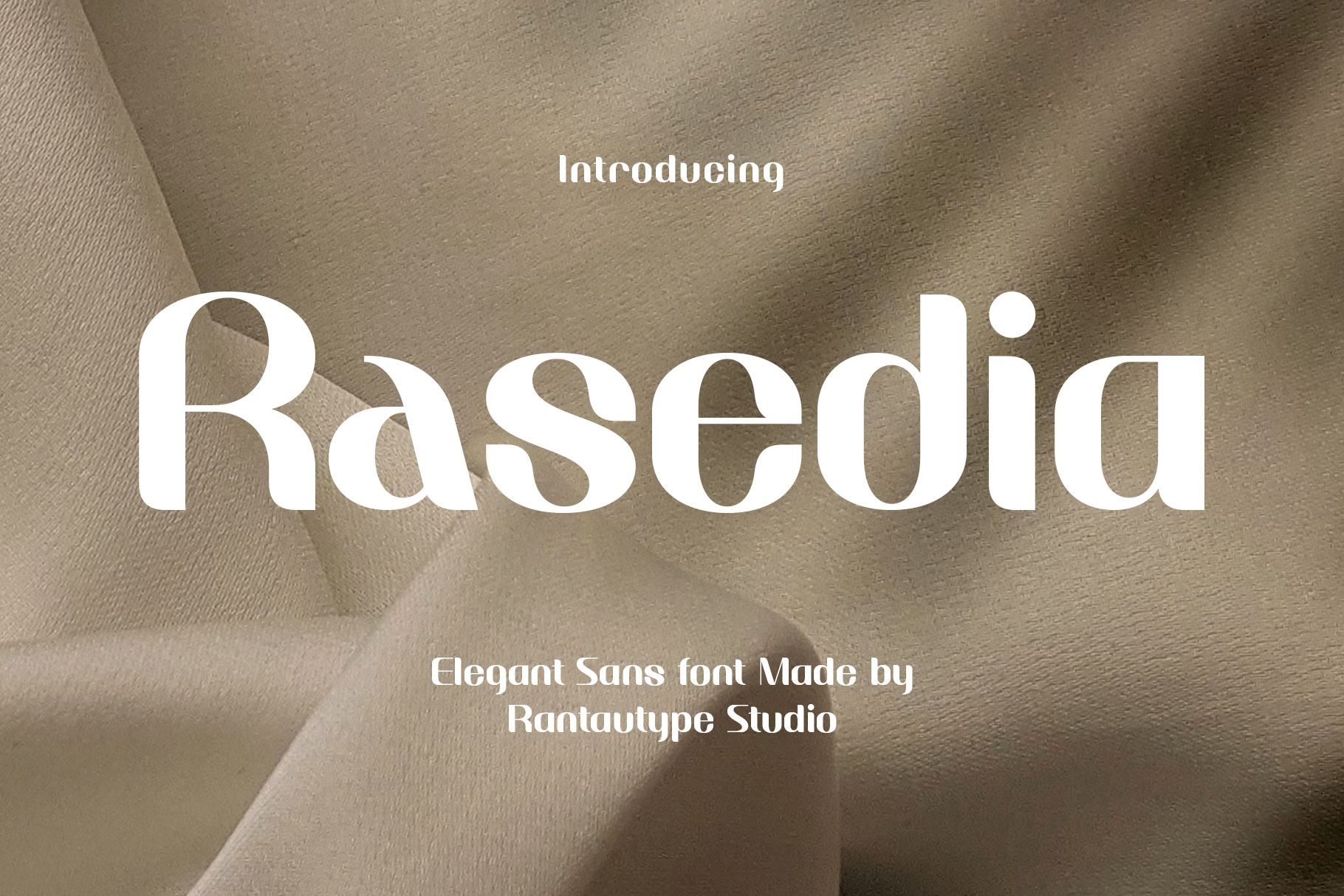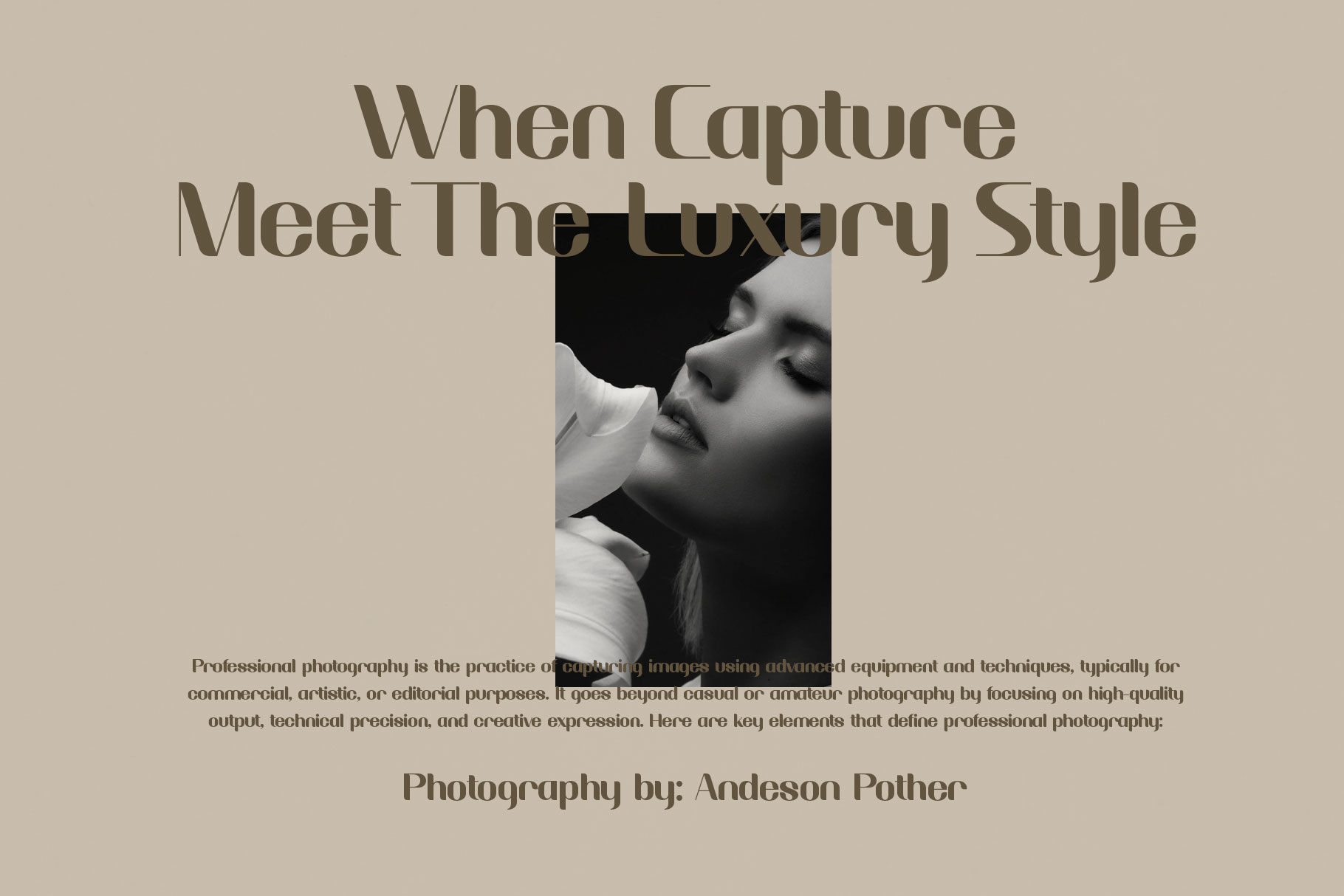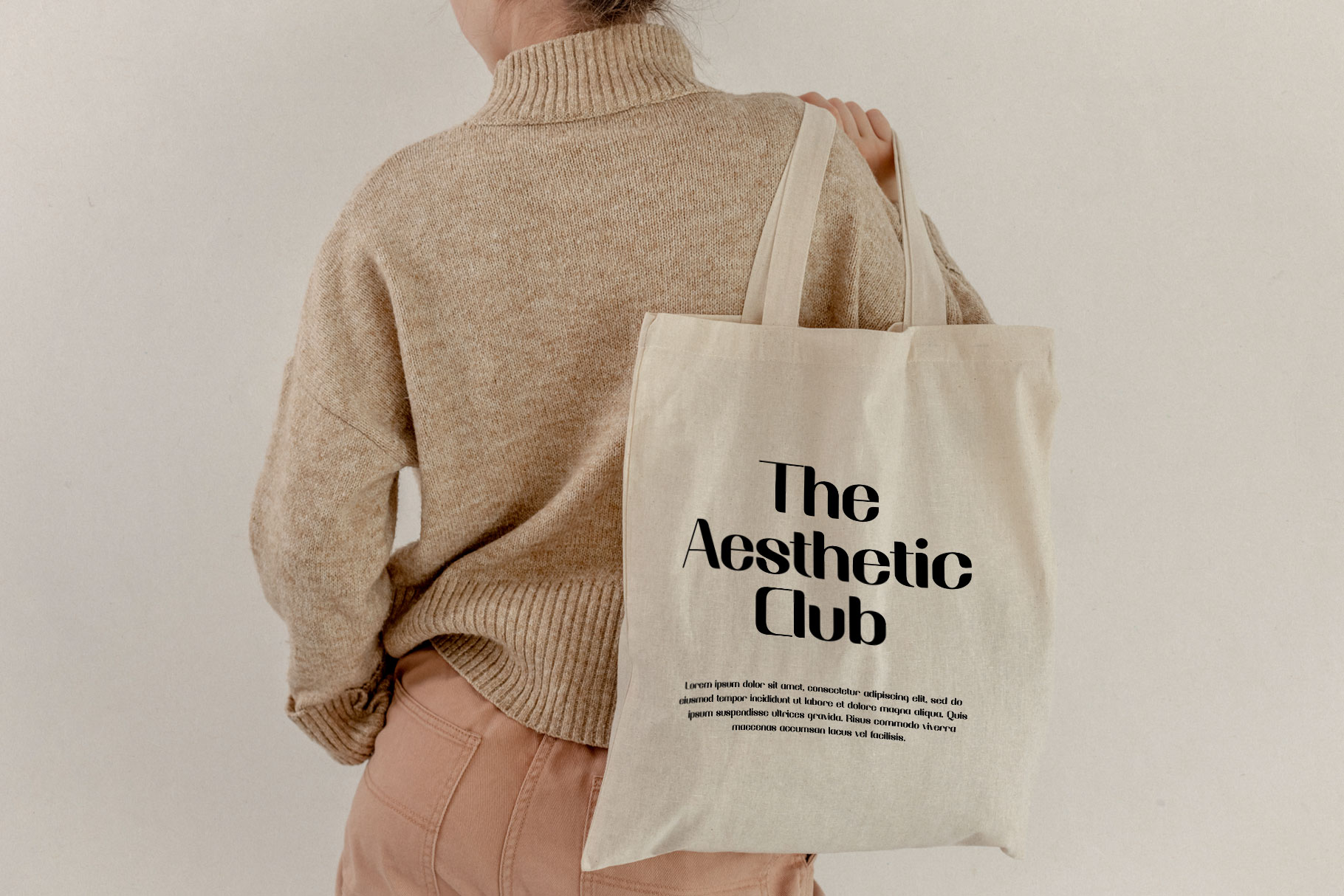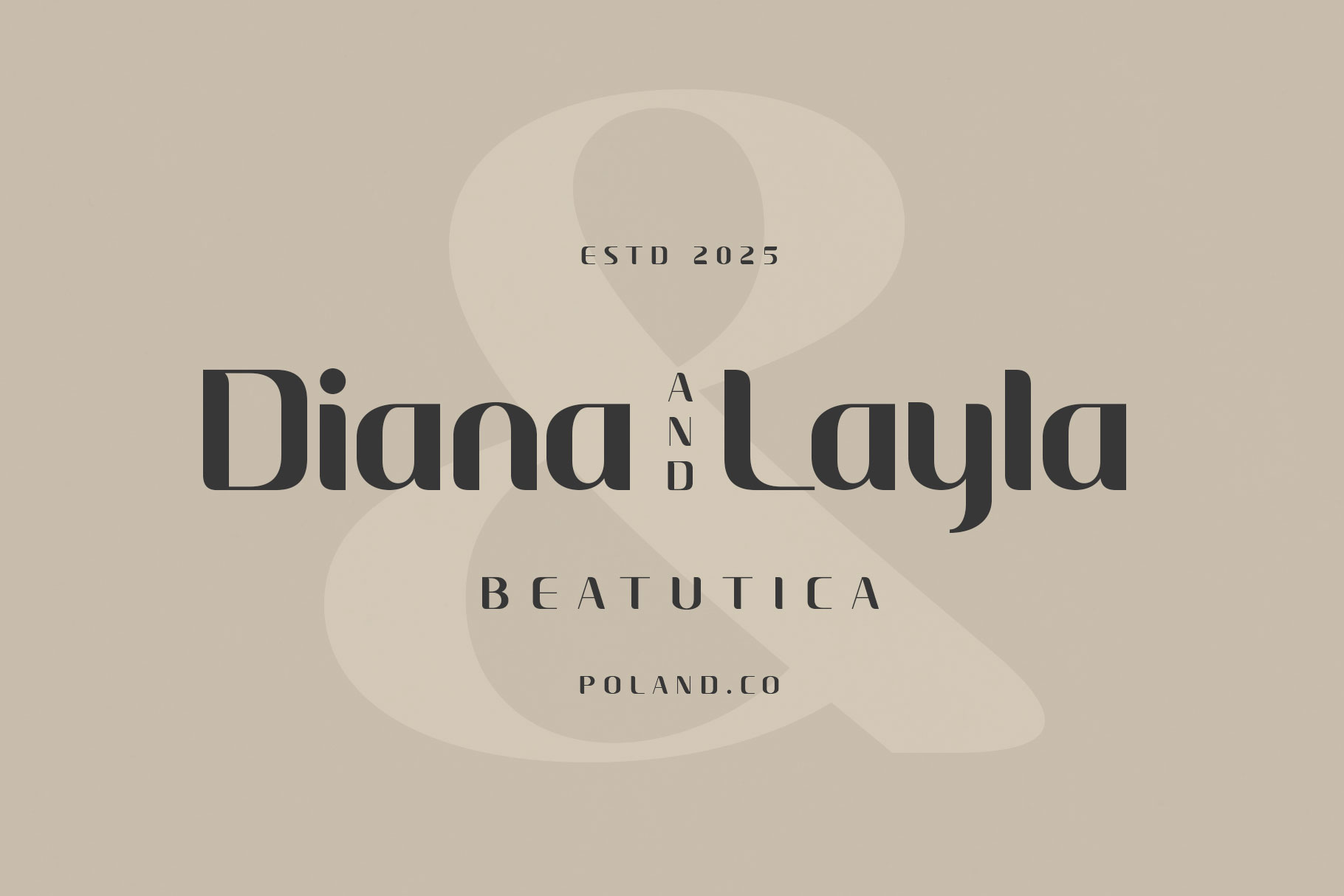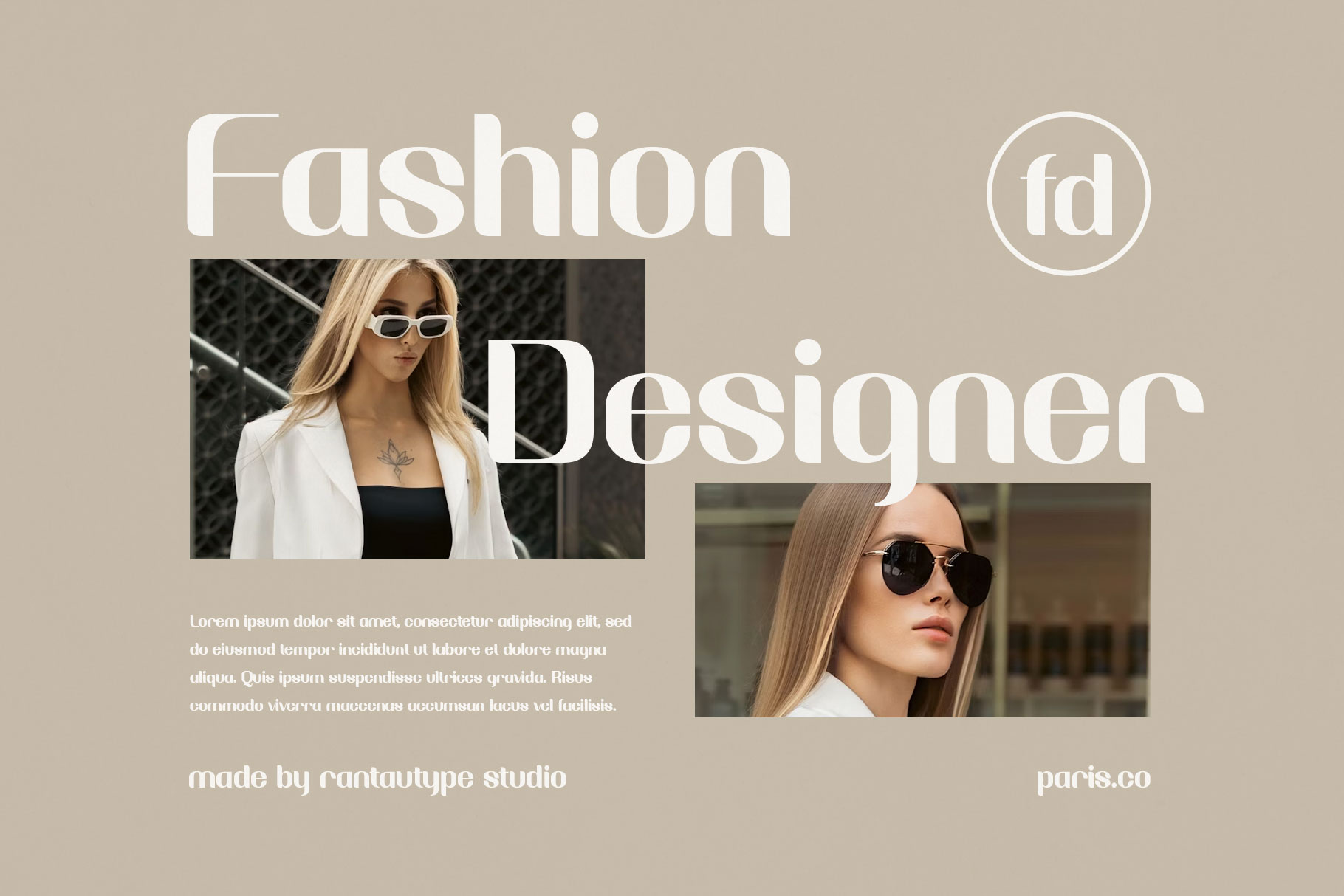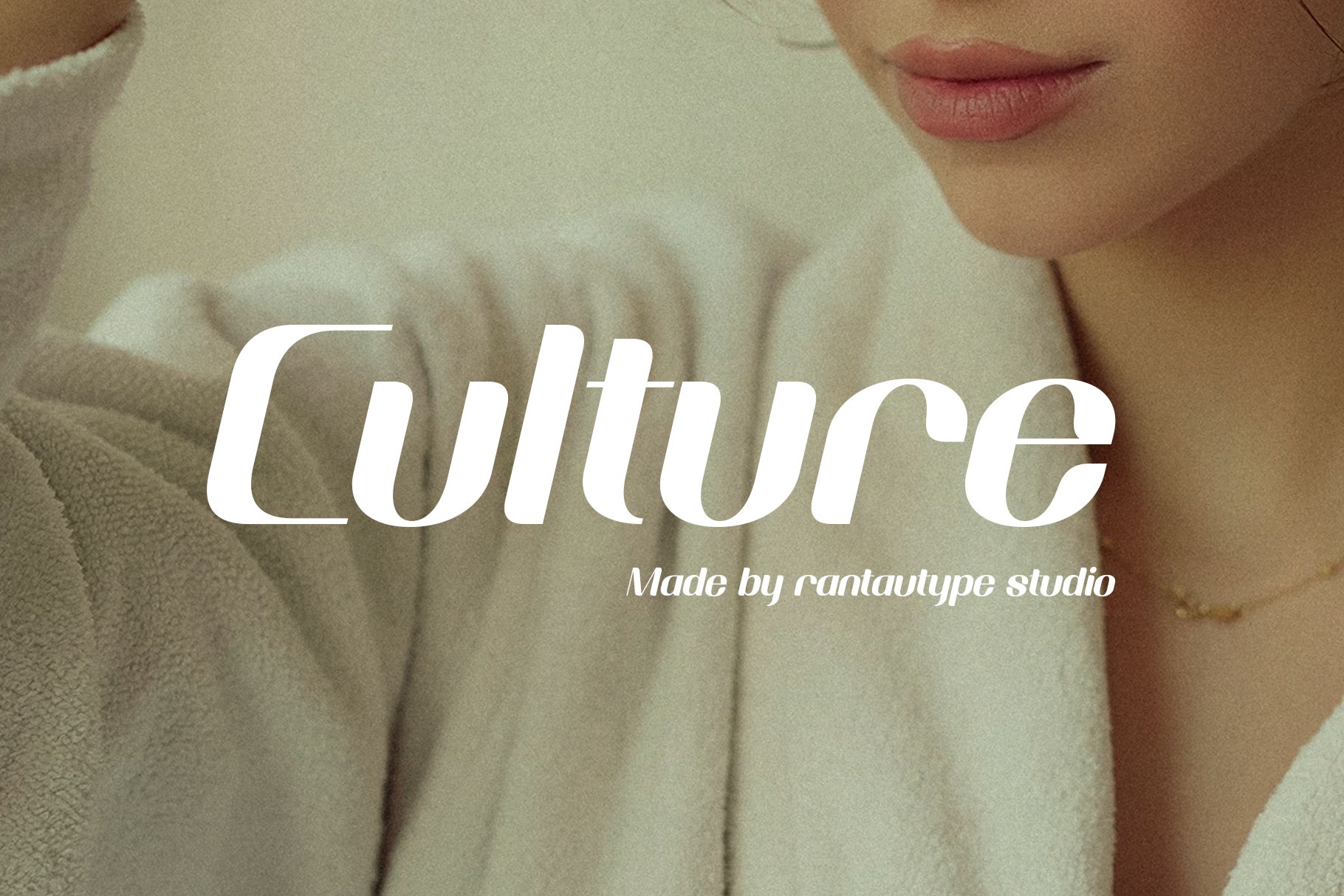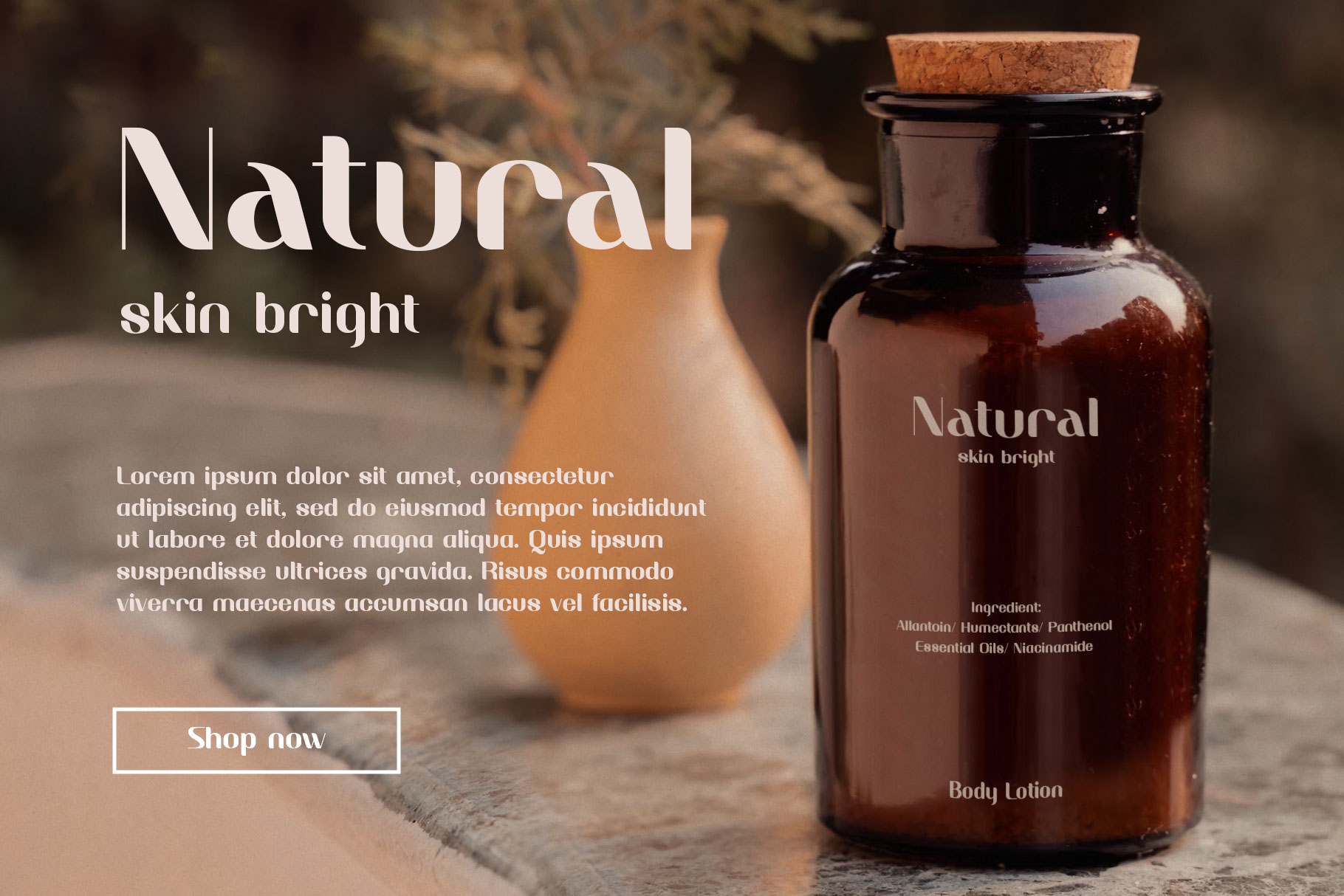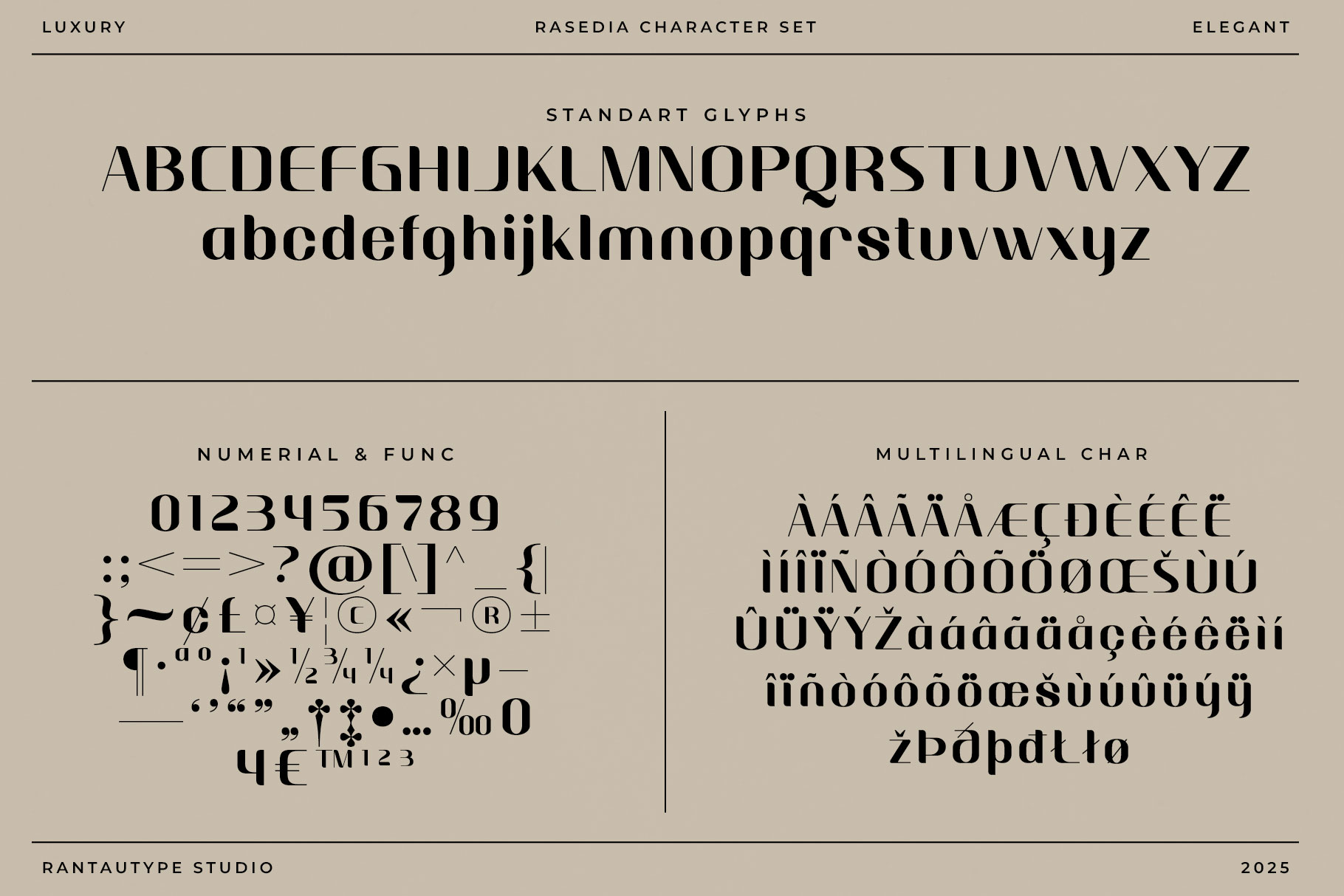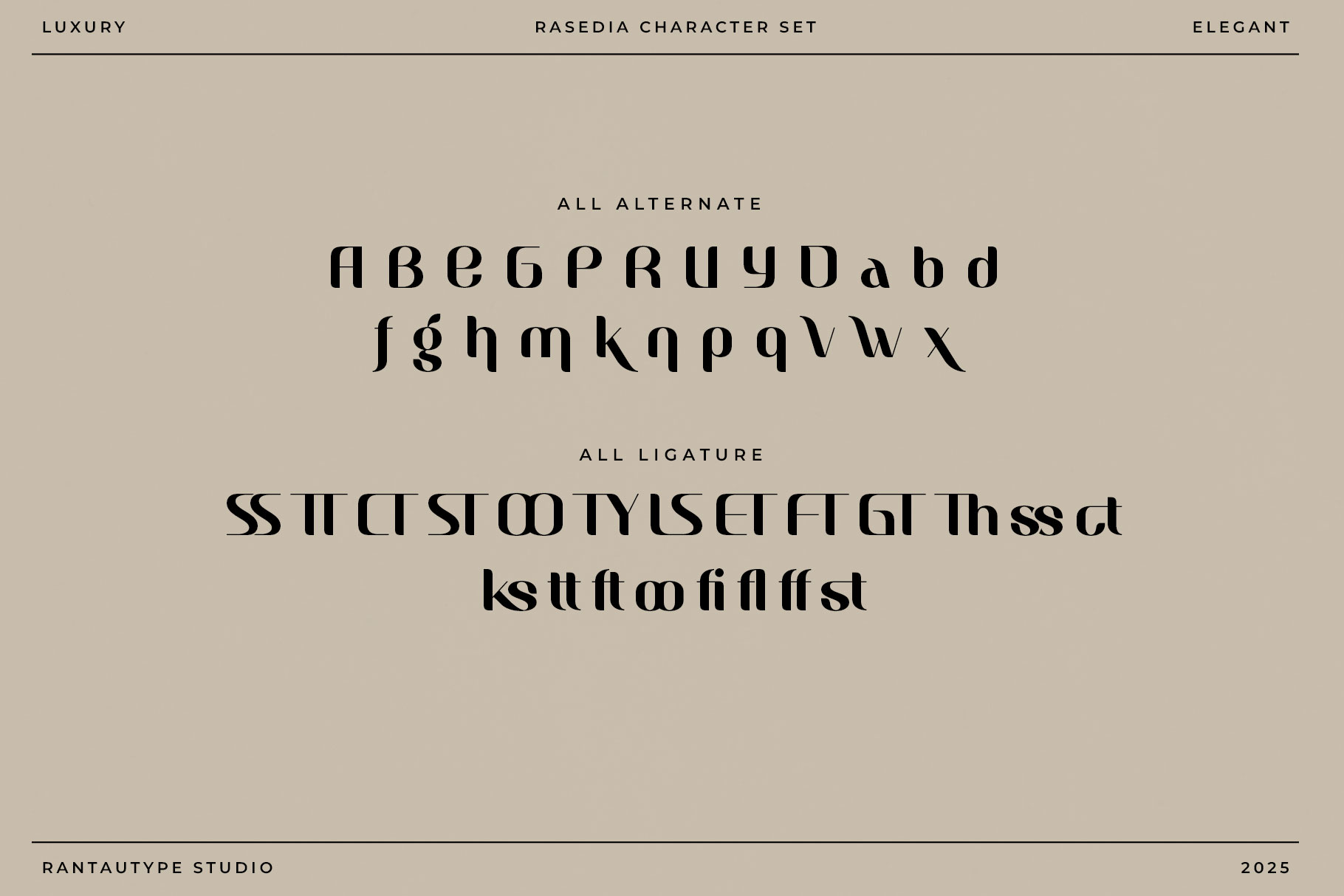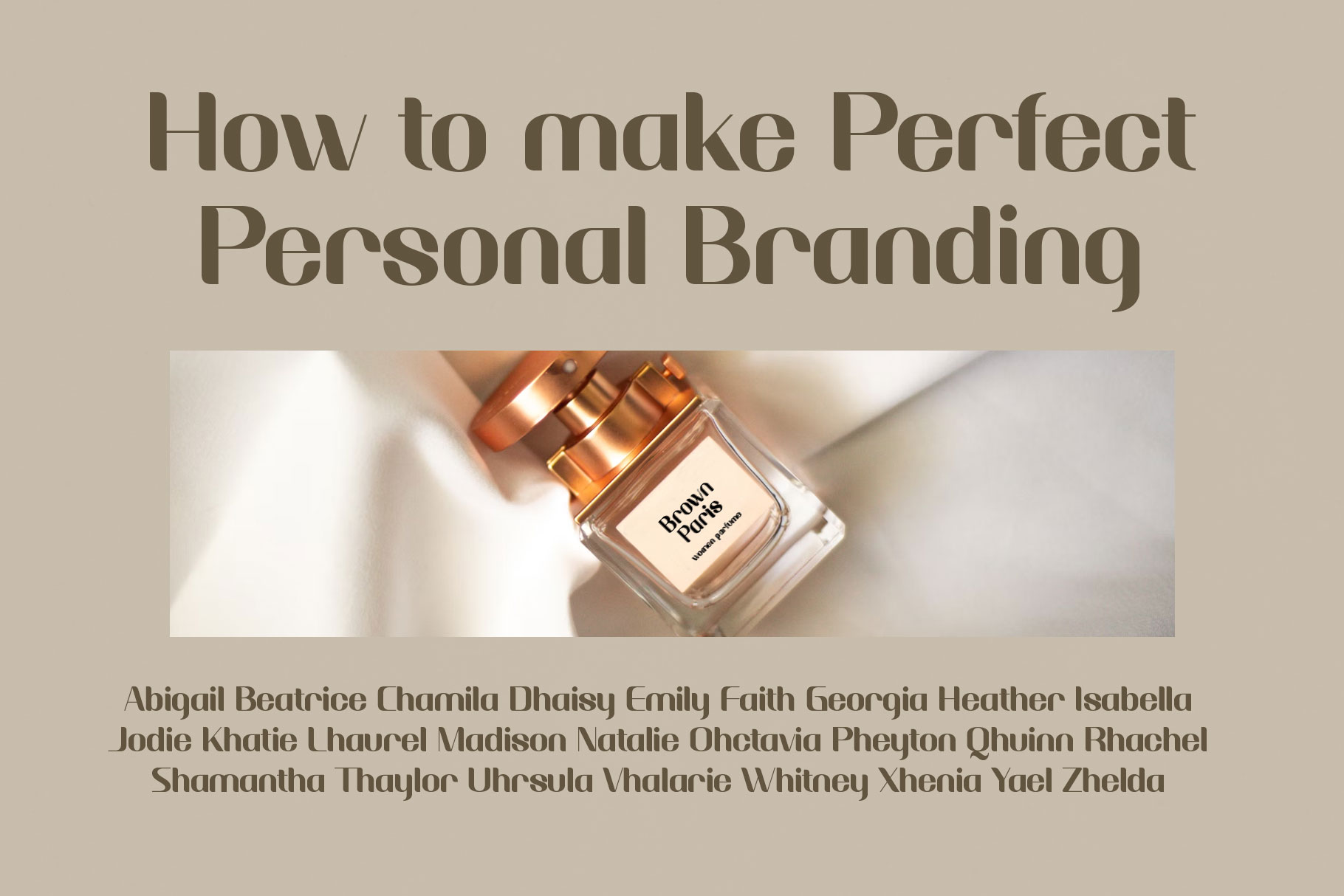
Rasedia Elegant Sans Font
Rasedia is Elegant Sans font with well balanced contemporary to make your design project stand out! Rasedia is a perfectly choice for any creative endeavor, chic, lifestyle design such as logotype, advertisements, watermark on photography, stationery, branding project, display and magazine, invitation, corporate brand, product design, label, business project and many other project with elegant touch.